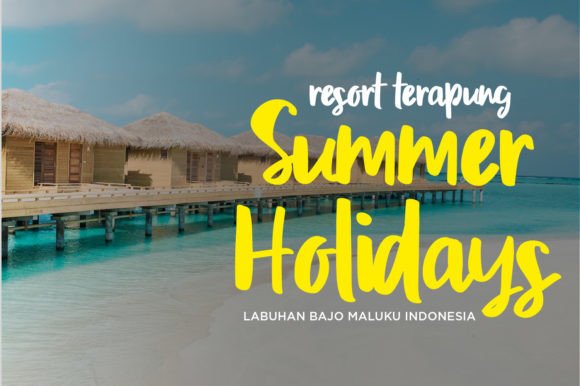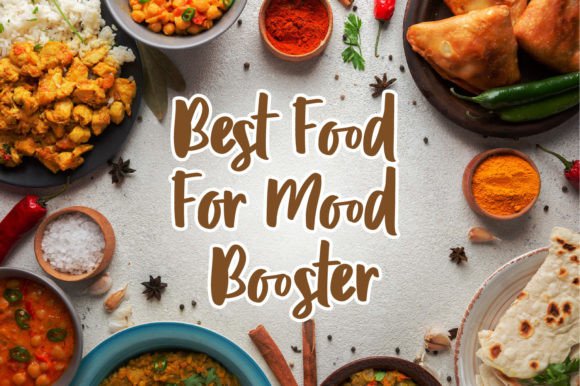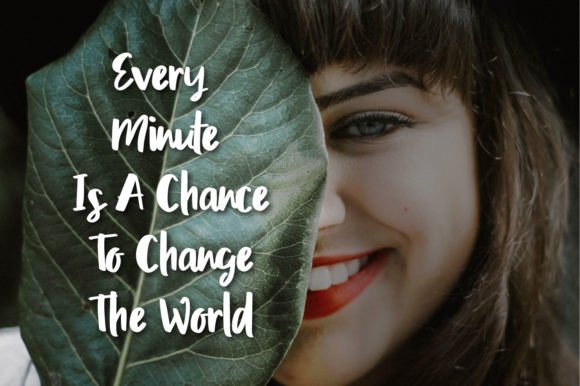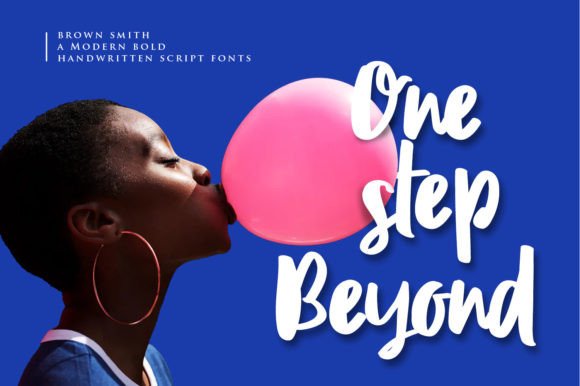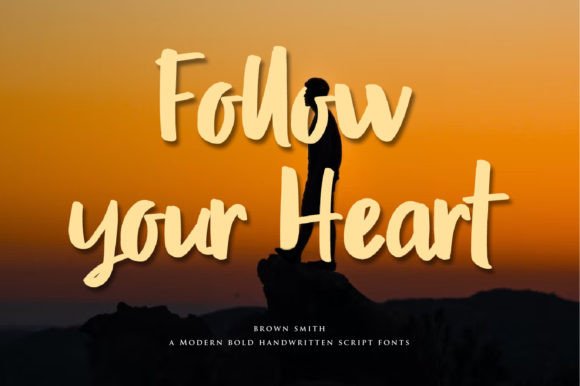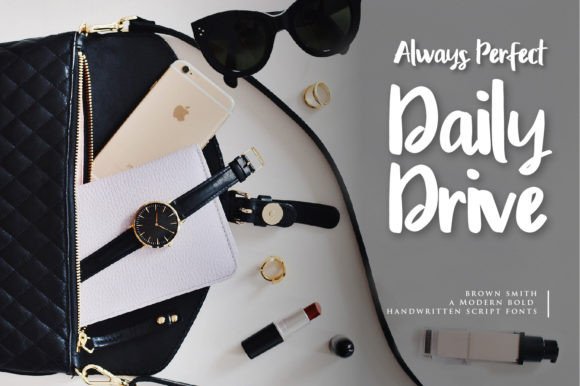
Embracing the Beauty of Imperfection: The Allure of the Brown Smith Font
As designers, we’ve all been there – staring at a blank canvas, waiting for that elusive spark of inspiration to strike. For me, it was a lazy Sunday afternoon, surrounded by coffee cups and scattered papers, when I stumbled upon the Brown Smith Font. Its effortless charm and organic curves instantly captured my attention, and I knew I had to learn more.
The Brown Smith Font is a natural and clean handwritten script font that exudes authenticity and simplicity. Its delicate strokes and gentle curves make it the perfect choice for branding, logos, and product packaging. By incorporating this font into your designs, you can create a connection with your audience and add a touch of warmth and elegance to your work.
For designers, the Brown Smith Font is a valuable asset – a versatile tool that can elevate any project and leave a lasting impression. Whether you’re working on a personal branding project or creating packaging for a new product, this font is sure to bring a unique touch to your designs.
Brown Smith Font Key Features
- Unique Characteristics: Unique blend of modern and vintage elements, making it suitable for various design projects
Brown Smith Font Review
Overall, I was pleasantly surprised by the Brown Smith Font. Here are some of its standout features:
- ✨ Unique aesthetic: The font has a distinct, earthy feel that sets it apart from more common fonts.
- ✨ Legibility: Despite its quirky design, the font remains easy to read, even at smaller sizes.
- ✨ Versatility: Brown Smith works well in a variety of applications, from headings to body text.
- ⚠️ Limited character set: The font’s character set is relatively small, which may cause issues for designers who need to use non-standard characters.
- ⚠️ Not ideal for small text: While the font is legible at larger sizes, it can become difficult to read at smaller sizes, making it less suitable for body text.
Overall, I’d recommend Brown Smith Font for designers who are looking for a unique, earthy aesthetic. While it may not be the most practical choice for every project, it’s definitely worth considering for applications where its distinctive look will shine through.
Getting the Most Out of Brown Smith Font
Here are some tips to help you get the most out of Brown Smith Font:
- Use it for headings and titles to add a touch of elegance.
- Pair it with other fonts to create a unique and visually appealing design.
- Experiment with different font sizes and styles to add depth and interest.
Brown Smith Font is perfect for:
- Food and beverage
Alternatives to Brown Smith Font for Designers
Playfair Display Font is a luxurious serif font ideal for use in high-end branding, luxury packaging, and editorial designs. It features elegant and refined lettering, making it perfect for creating a sophisticated and elegant atmosphere. Compared to Brown Smith Font, Playfair Display Font has a more refined and luxurious feel, while Brown Smith Font is more rustic and earthy.
Great Vibes Font is a modern script font that’s perfect for use in creative and expressive designs, such as invitations, greeting cards, and social media graphics. It features a playful and whimsical feel, making it ideal for designers who want to add a touch of personality to their work. Compared to Brown Smith Font, Great Vibes Font is more dynamic and expressive, while Brown Smith Font is more laid-back and casual.
Lobster Font is a bold and playful script font that’s perfect for use in eye-catching headlines and titles. It features a unique and attention-grabbing feel, making it ideal for designers who want to add a touch of drama to their work. Compared to Brown Smith Font, Lobster Font is more dramatic and attention-grabbing, while Brown Smith Font is more understated and subtle.
Pacifico Font is a beautiful and elegant script font that’s perfect for use in creative and expressive designs, such as branding, packaging, and editorial designs. It features a smooth and flowing feel, making it ideal for designers who want to add a touch of sophistication to their work. Compared to Brown Smith Font, Pacifico Font is more refined and elegant, while Brown Smith Font is more rustic and earthy.